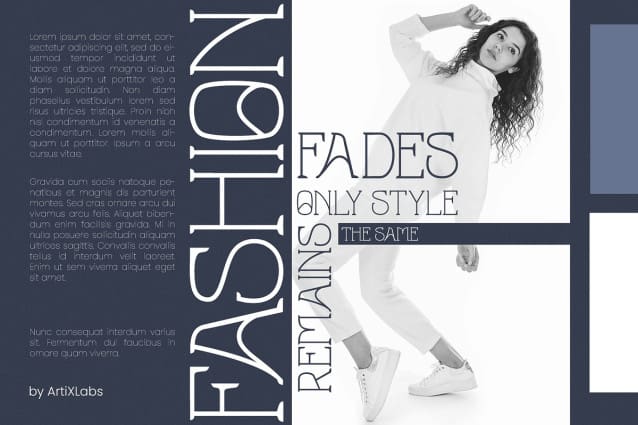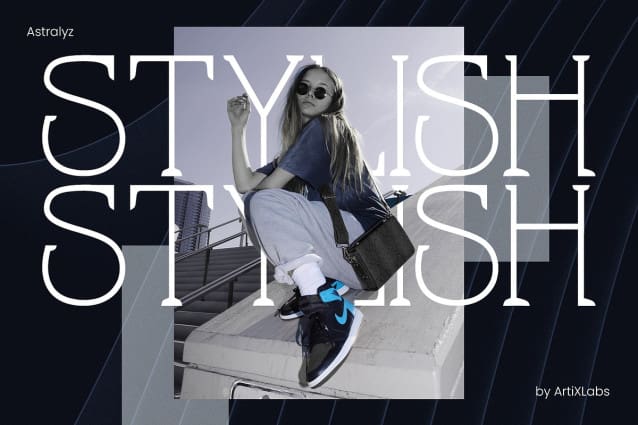
Astralyz Font
Astralyz Font. This Font can be used for any variety of purposes, such as: Event, Ceremony, Packaging Products, Logo Type, Branding, T-Shirt Design, Website/Blog, Headline Magazine, Brochures and also can be used for other purpose.
This Font Template contains Classic, Luxury, Creative, Professional and Unique Concept.